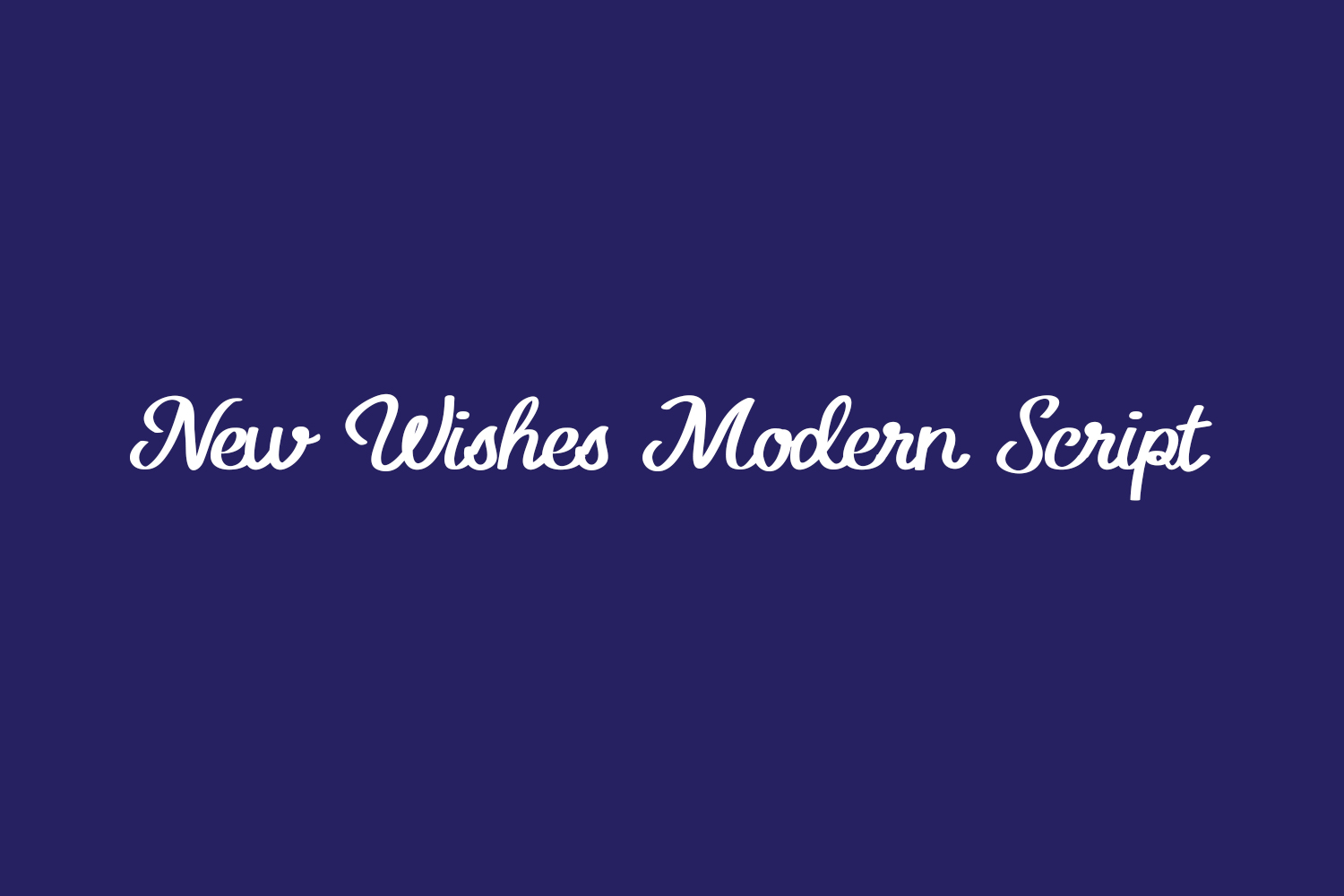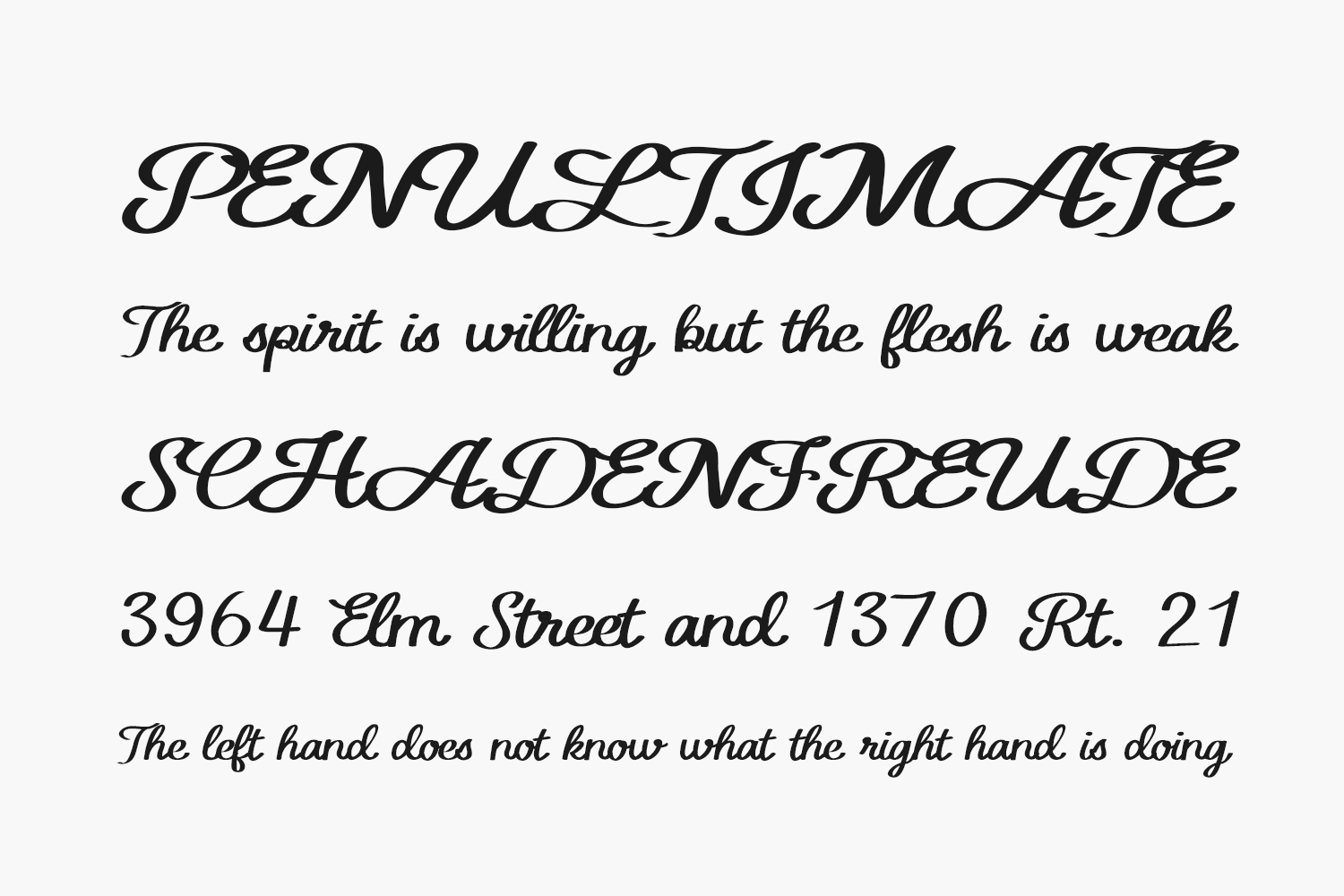
New Wishes Modern Script is a beautiful, handwritten, and elegant typeface that belongs to the Script typeface family. Fontles provides the typeface family with OTF and TTF features and Many designers know that with help of this style you can create even newer fonts and can articulate your design.
While the typeface would be great for extra large text as well as small text and special for heading or titling as well. The font style comprises in Uppercase and Lowercase Letters, Mandatory Punctuations, Different Symbols, Numbers, and Numerals and all the glyphs have a beautiful personality and swash lines.
You can give your book a new shape by manipulating this typeface as the heading of titling and body text especially. The font style has a pairing nature with Avenir Font. It is sans serif typeface and has the unusual mind-blowing character you can get from our website.
New Wishes Modern Script can be a high requirement typeface and it can make cause adoption by many creators and designers and Corporations. They always can apply the typeface in their fancy and charming designs. You need to try the best and most amazing geometric kind of typeface named Century Gothic Font a sans serif with amazing geometrical effects. New Wishes Modern Script Free Font was designed by Fontles and is free for personal use only. Please purchase the full version for commercial use.